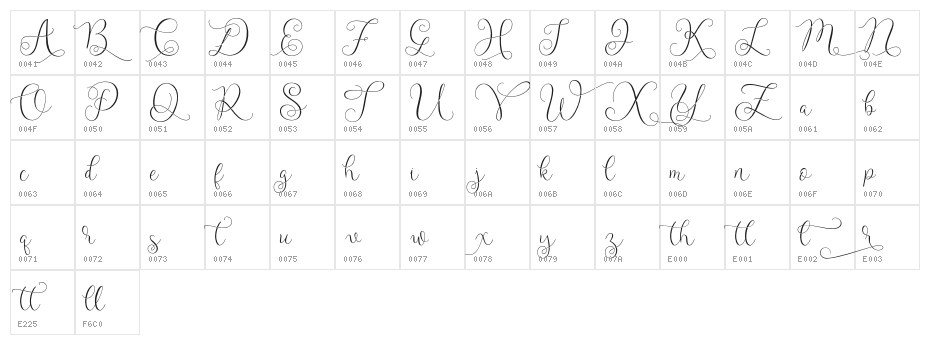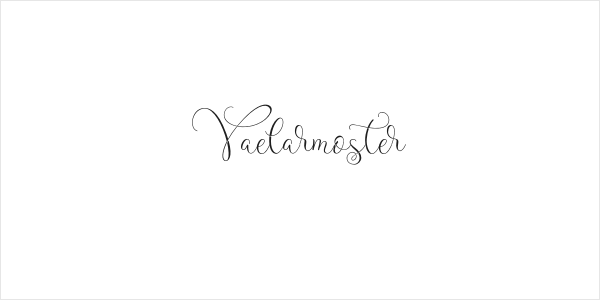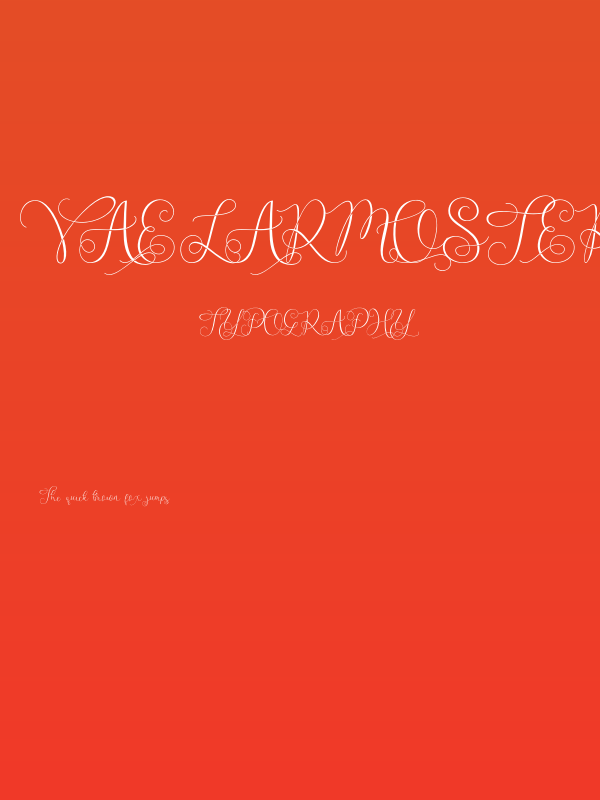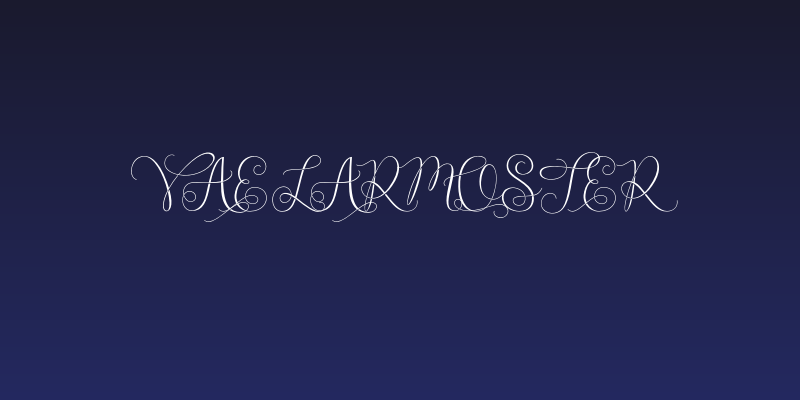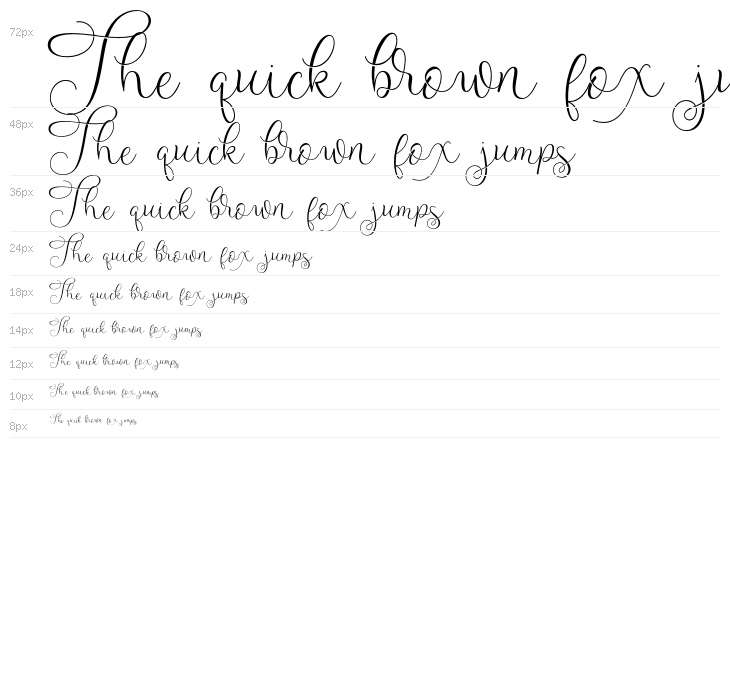
Vaelarmoster Font
✎ Calligraphic
| Категория | Calligraphic |
| Область применения | Logos, Invitations, Artistic projects |
| Рекомендуемые проекты | Ideal for wedding invitations, elegant branding, high-end product packaging, and artistic posters. |